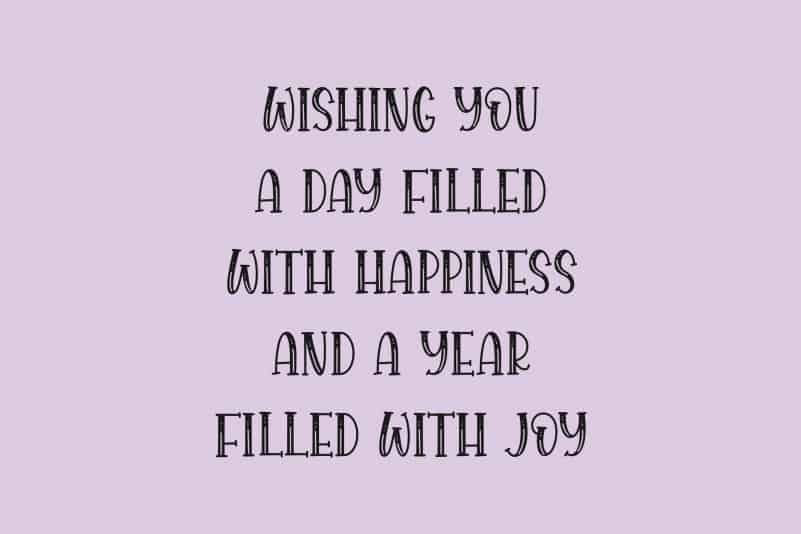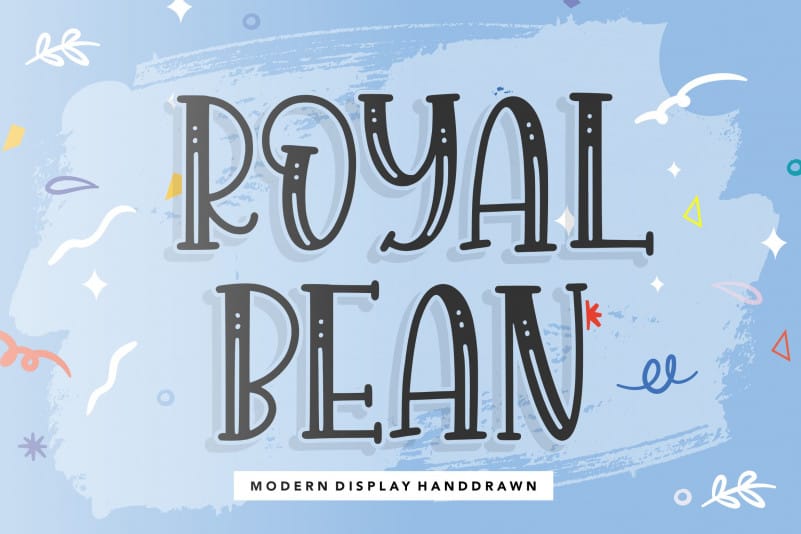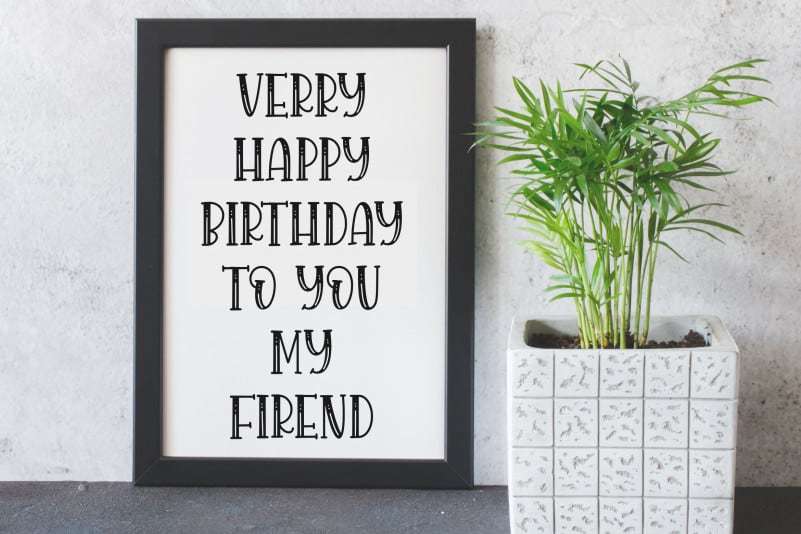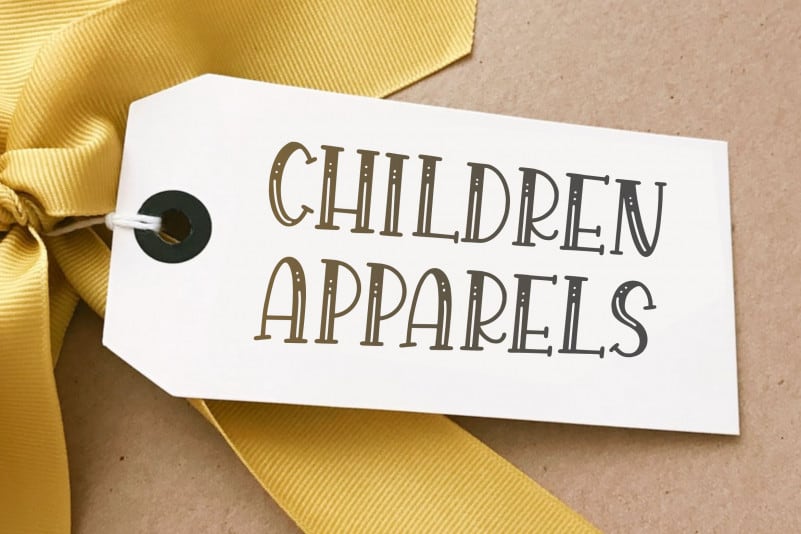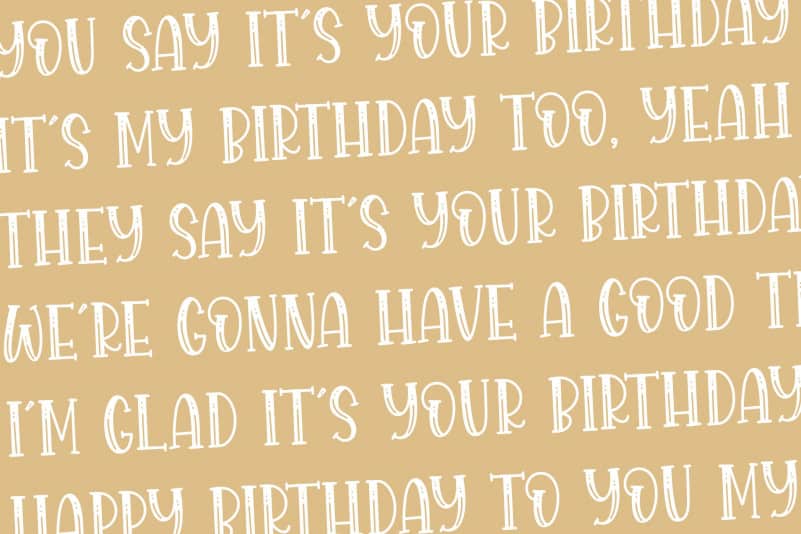
ROYALBEAN Modern Display Handdraw Font
Proudly Present, ROYALBEAN Modern Display Handdraw Font.
ROYALBEAN is a Modern Display Handdraw Font.
It is perfect for product packaging, branding project, megazine, social media, wedding, or just used to express words above the background.